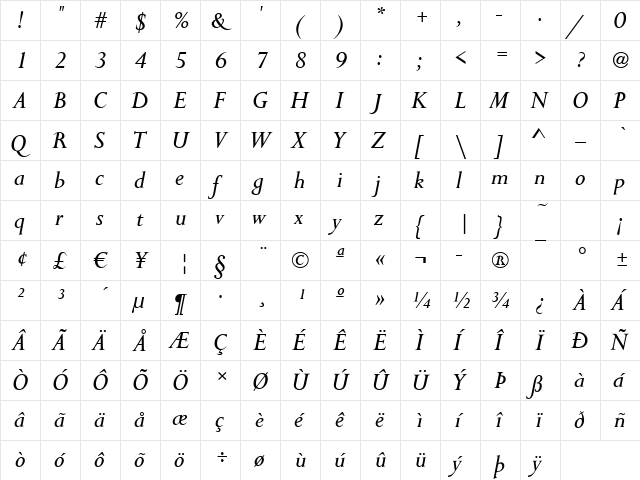
Persistent Italic
Design Context for Persistent Typeface
Persistent takes a measured approach to typography — its balanced proportions and neutral character make it a reliable workhorse for both digital and print work. The slanted form adds forward momentum and visual energy.